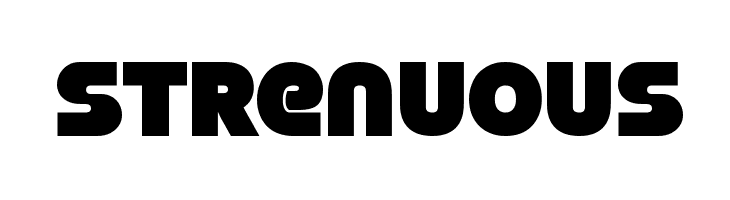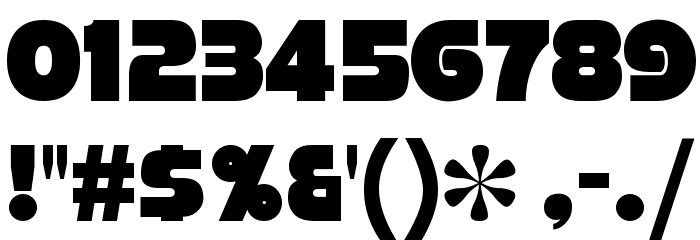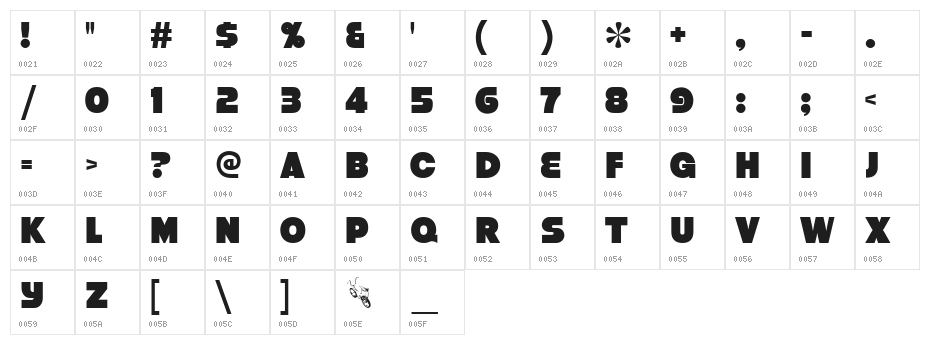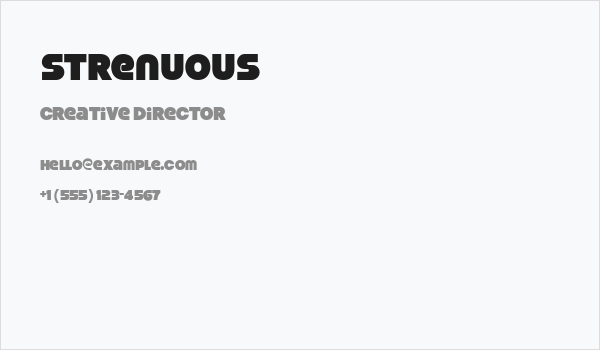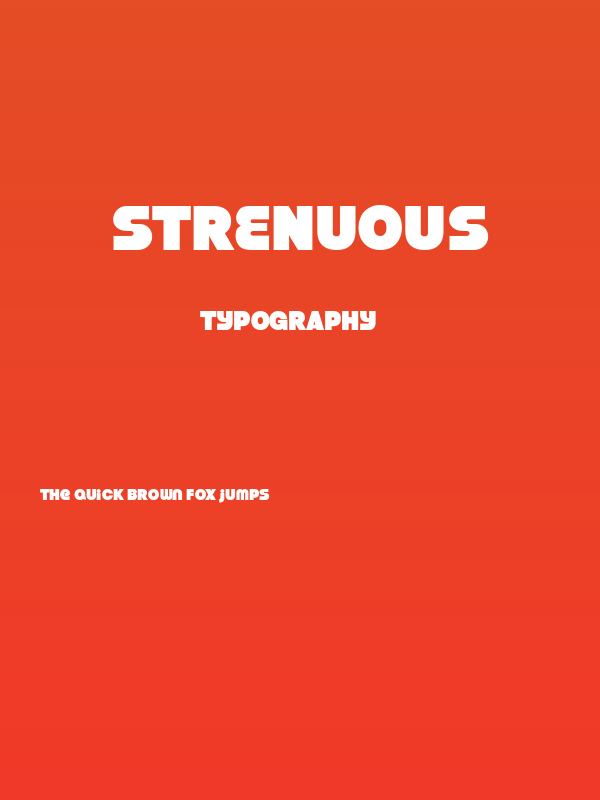
Strenuous Font
Strenuous Description
This font features a bold and impactful design with thick, uniform strokes that create a strong visual presence. The characters are rounded and geometric, giving them a modern and futuristic feel. The uppercase and lowercase letters maintain a consistent weight, enhancing readability while adding a sense of stability. The numerals and special characters follow the same design principles, ensuring a cohesive look across all text. Its boldness makes it ideal for attention-grabbing headlines or branding that requires a strong and memorable impression.
| Proposed Projects | Ideal for branding, advertising, posters, and headlines where a strong visual impact is needed. |